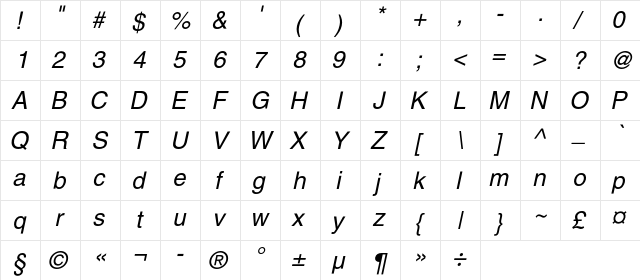
AGLettericaC Italic
Design Context for AGLettericaC Typeface
AGLettericaC is a composed and adaptable typeface that performs quietly and consistently across a wide range of design contexts. The slanted form adds forward momentum and visual energy.
Pro Tip: Use AGLettericaC for emphasis, pull quotes, and subheadings where its slanted energy can add rhythm to the layout.